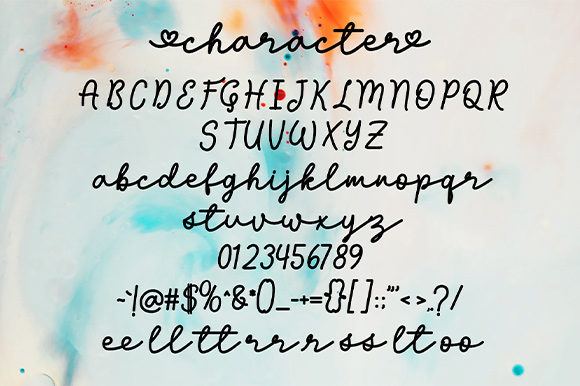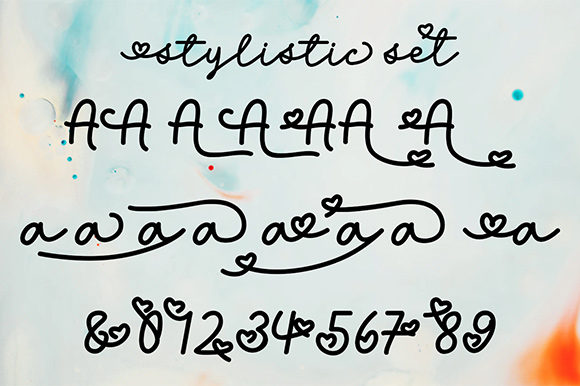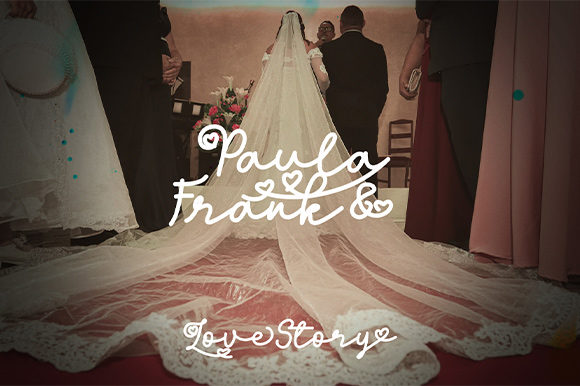
Introduction to Longhoney Font
There’s nothing quite like the feeling of bringing a creative project to life. The moment when all the elements come together, and you see your vision take shape. For designers, this moment is often the culmination of hours, even days, of work. But what if I told you that there’s a secret ingredient that can elevate your designs to the next level? Enter the Longhoney Font, a stunning handwritten script that’s sure to leave a lasting impression.
With its gorgeous swashes and ligatures, the Longhoney Font is the perfect design resource for anyone looking to add a touch of elegance and sophistication to their work. Whether you’re working on a high-quality brochure, a free download, or a creative project that requires a transparent background, this font is sure to deliver.
- Unique blend of modern and vintage elements, perfect for creative projects
- Supports a wide range of languages, including Latin, Cyrillic, and Greek scripts
- Includes multiple font weights and styles, allowing for maximum flexibility in design projects
Honest Review: Longhoney Font
I recently stumbled upon the Longhoney Font, and I must say it’s a great addition to any designer’s toolkit. With its high-quality design and transparent background, it’s perfect for creative projects that require a touch of elegance.
What works well with the Longhoney Font is its versatility. It’s a free download, making it easily accessible to designers of all levels. I love how it can be used in a variety of contexts, from headings to body text, and it always looks great.
- ✨ Beautiful, high-quality design that’s perfect for creative projects
- ✨ Transparent background makes it easy to use in different design contexts
However, there are a few limitations to consider. The Longhoney Font is only available in a limited number of weights and styles, which may not be suitable for every project.
- ⚠️ Limited number of weights and styles
- ⚠️ May not be suitable for projects that require a wide range of font options
Overall, I’m impressed with the Longhoney Font and would definitely recommend it as a design resource. Its high-quality design and versatility make it a great addition to any designer’s toolkit.
The Longhoney Font is a high-quality design resource, perfect for creative projects that require a unique and stylish touch. With its transparent background, this font can be easily customized to fit any design need.
To get the most out of the Longhoney Font, experiment with different font sizes, colors, and styles to create a unique look. You can also pair the font with other design elements, such as images and graphics, to add depth and interest to your designs.
Common Use Cases for the Longhoney Font
The Longhoney Font is perfect for a variety of creative projects, including:
- Brand identity design
- Marketing materials